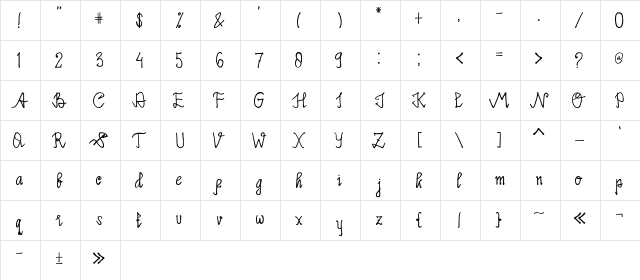
Limpoke Font Regular
| Foundry | Hanif Syahputra |
| Designer | Hanif Syahputra |
Design Context for Limpoke Font Typeface
Limpoke Font is a composed and adaptable typeface that performs quietly and consistently across a wide range of design contexts.